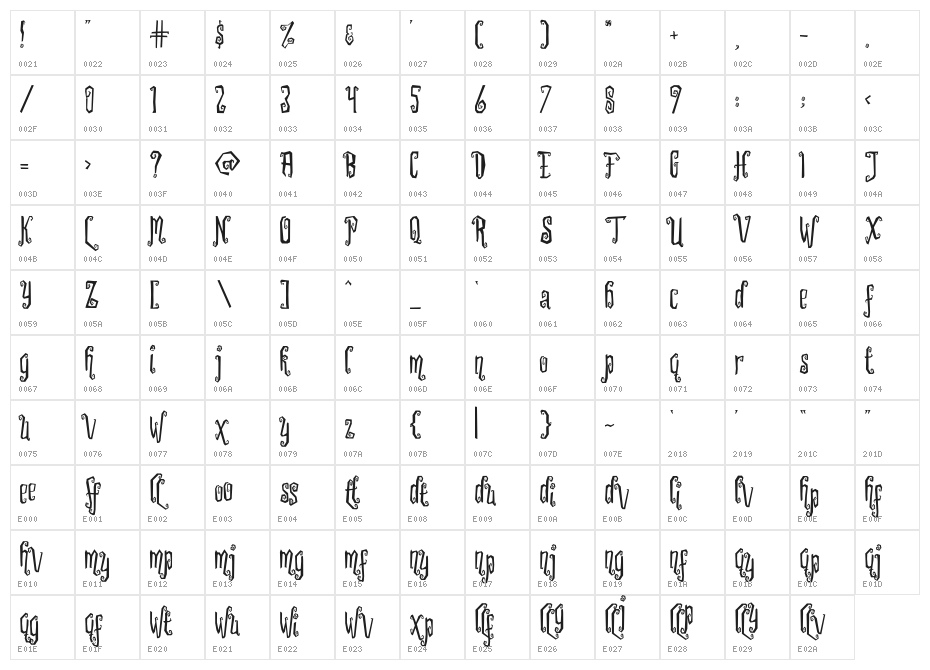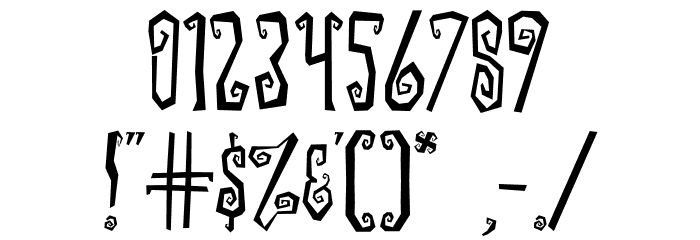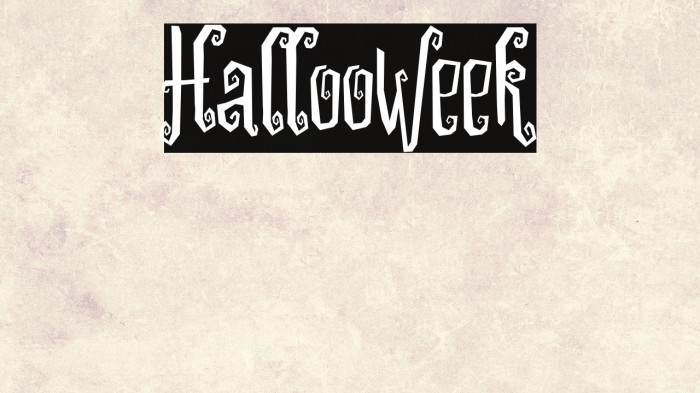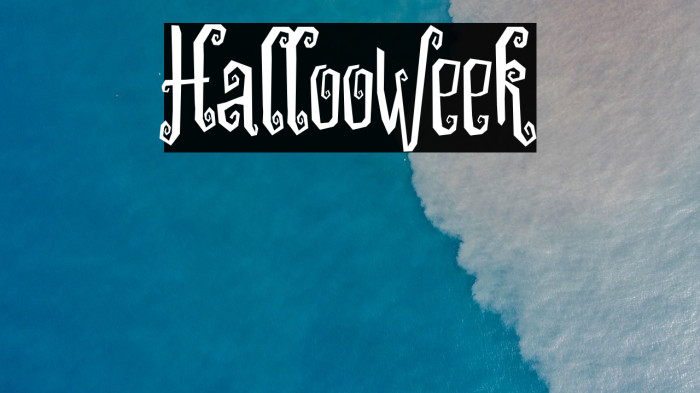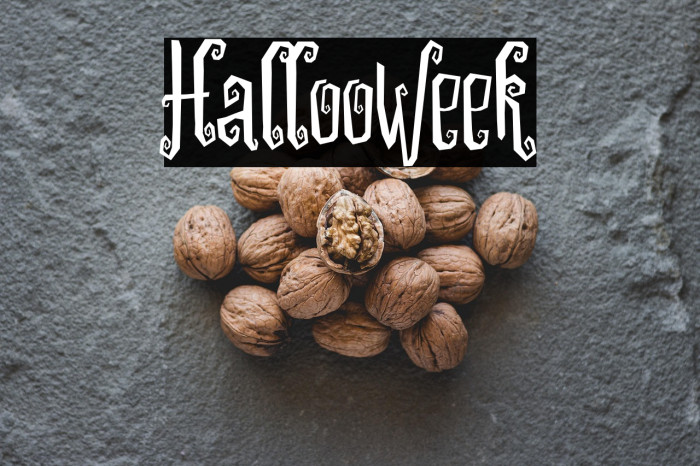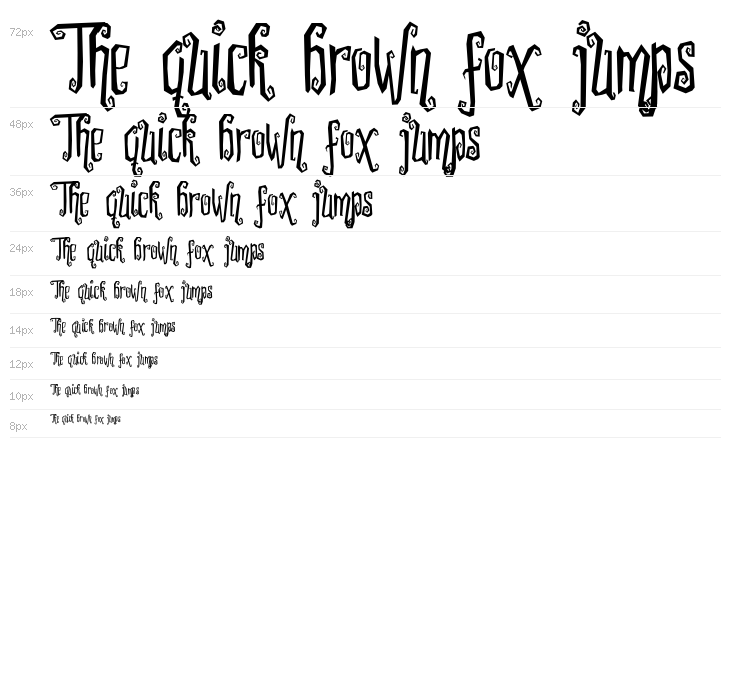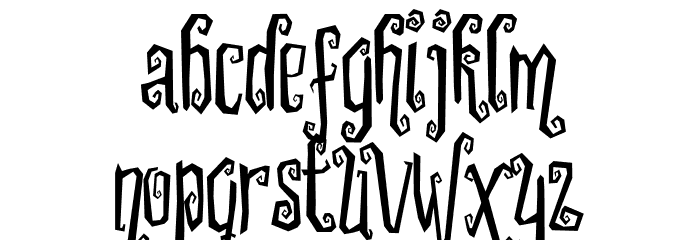
Hallooweek Font
Hallooweek Description
This font features a whimsical and spooky design, perfect for Halloween-themed projects. The letters are characterized by irregular, jagged edges and playful curls, giving them a haunted, eerie appearance. The uppercase and lowercase letters maintain a consistent style, with exaggerated serifs and a slightly uneven baseline, adding to the font's quirky charm. The numbers and special characters follow the same design principles, ensuring a cohesive look across all elements. This font's unique style makes it ideal for creative and seasonal uses.
| Use Case | Headlines, Logos, Themed Events |
| Proposed Projects | Perfect for Halloween invitations, themed posters, party decorations, and spooky merchandise. |